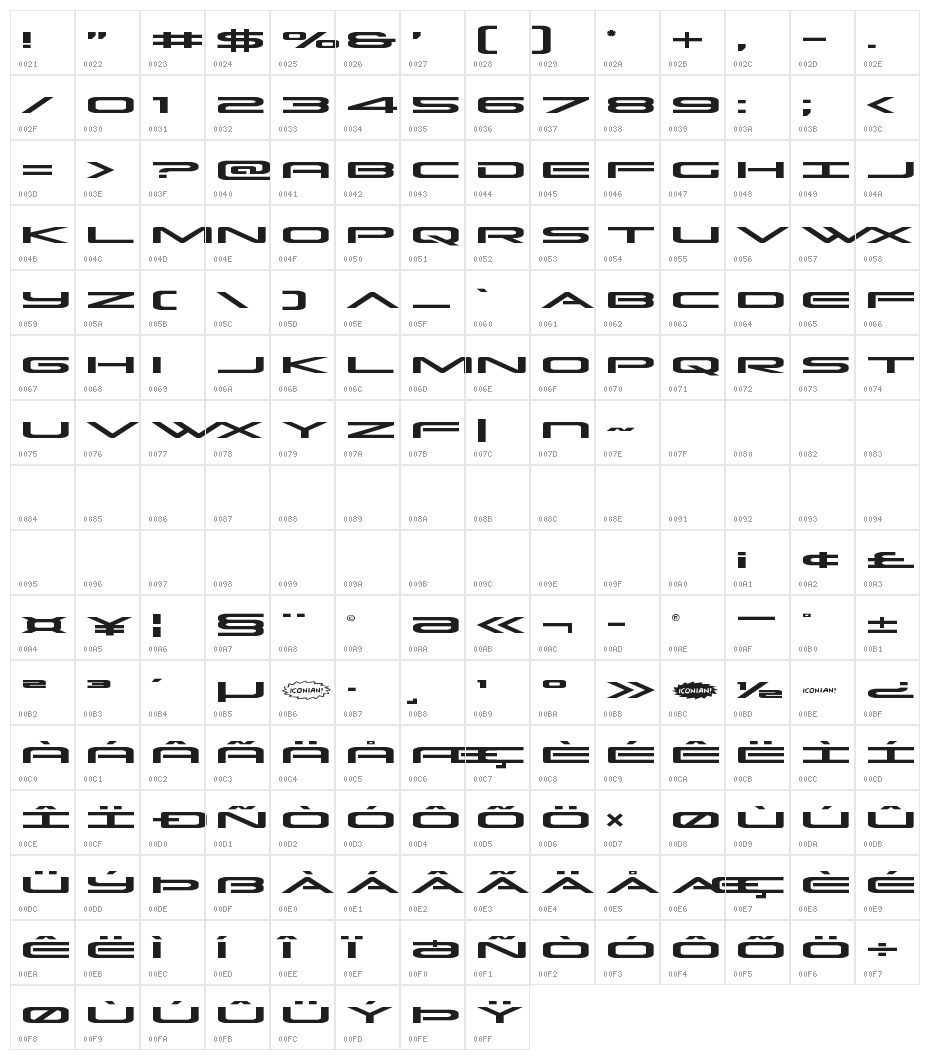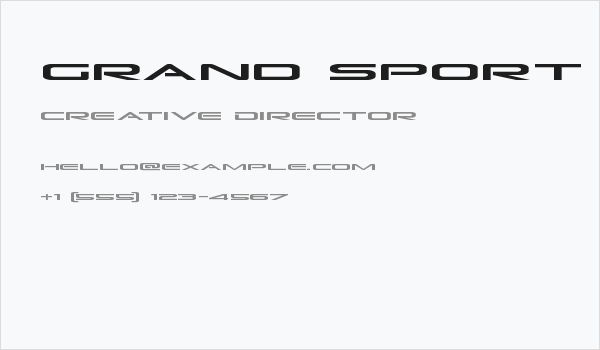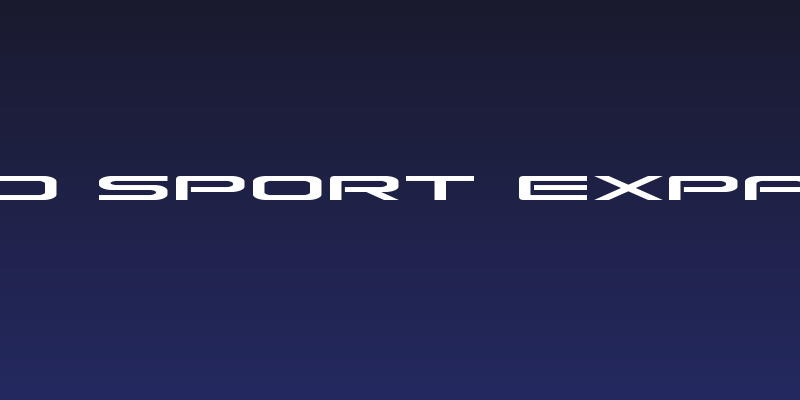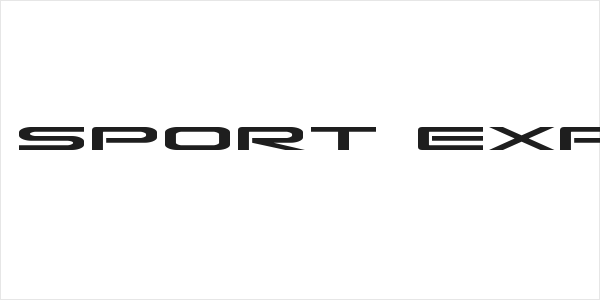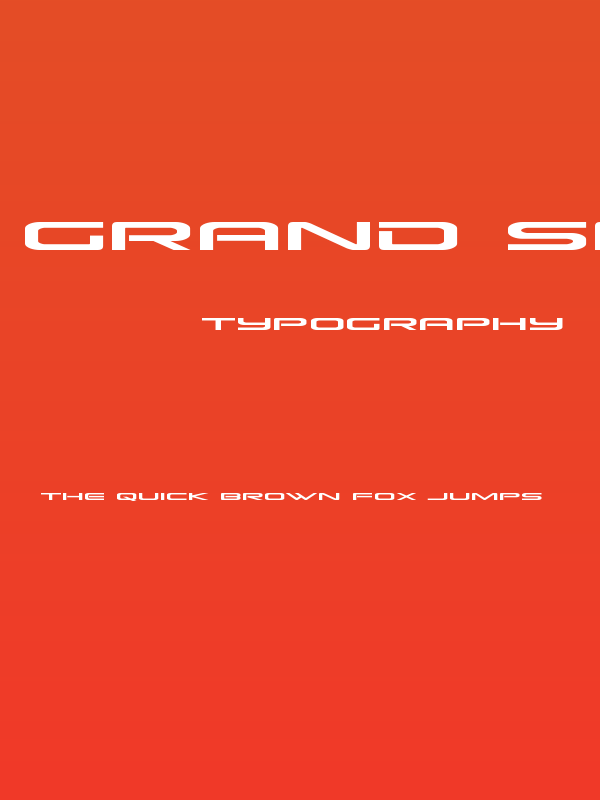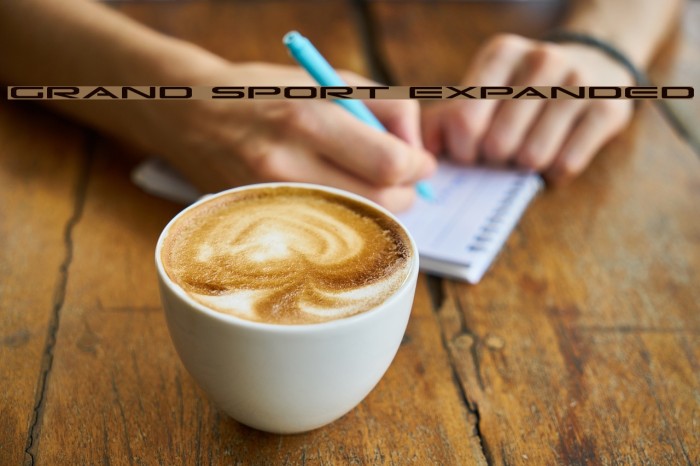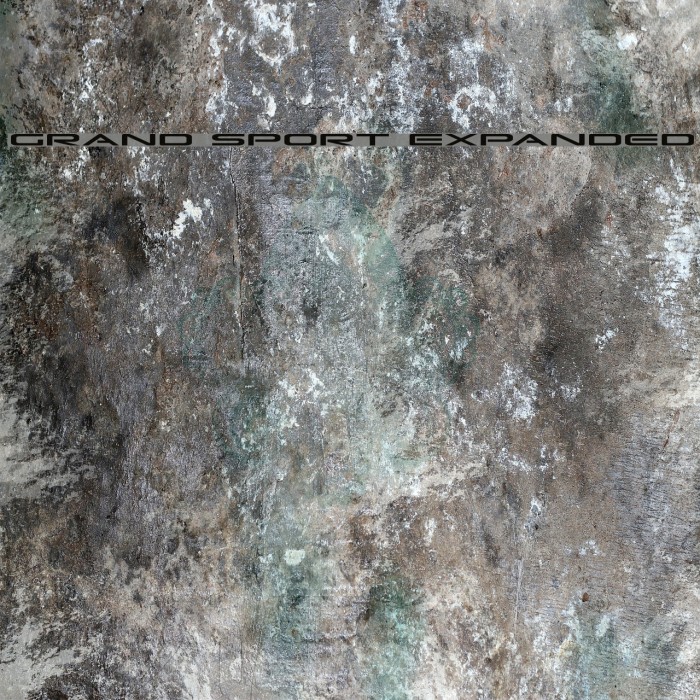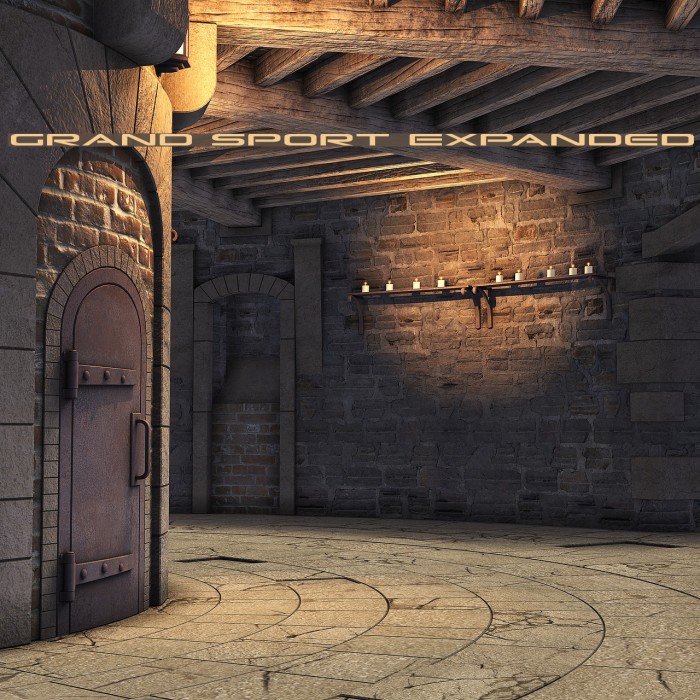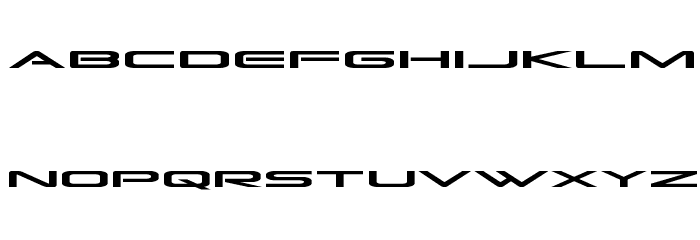
Grand Sport Expanded Font
Grand Sport Expanded Description
This font features a sleek, modern design with an expanded width that gives it a futuristic and sporty appearance. The characters are bold and geometric, with sharp angles and clean lines that convey a sense of speed and dynamism. The uppercase and lowercase letters maintain a consistent style, while the numerals and special characters complement the overall aesthetic. The font's expanded width allows for excellent readability, making it suitable for various design applications where a bold statement is needed.
| Proposed Projects | Ideal for automotive branding, sports team logos, tech product packaging, and dynamic advertising campaigns. |